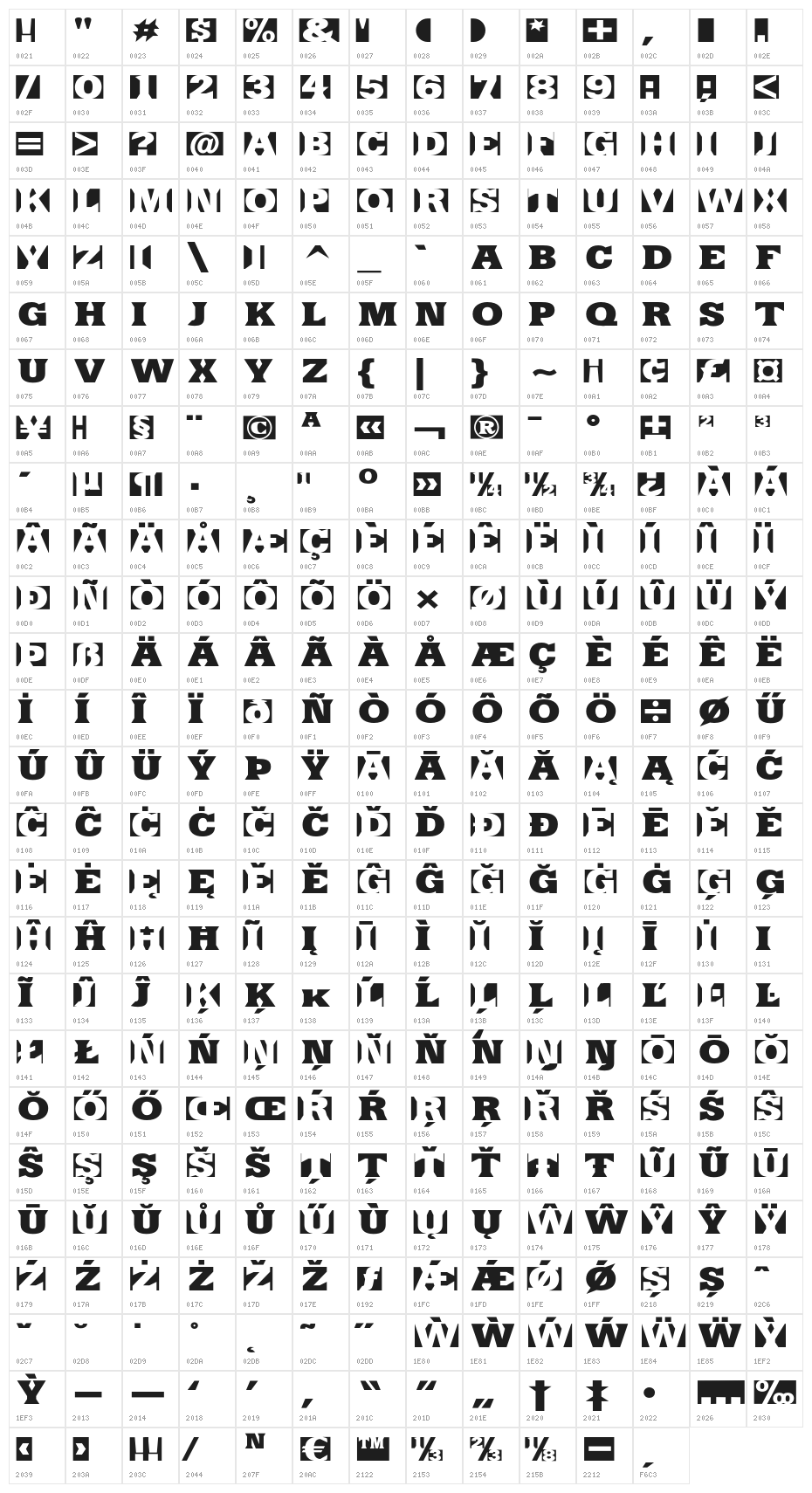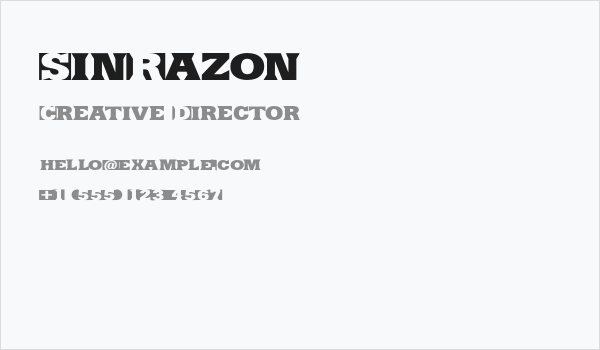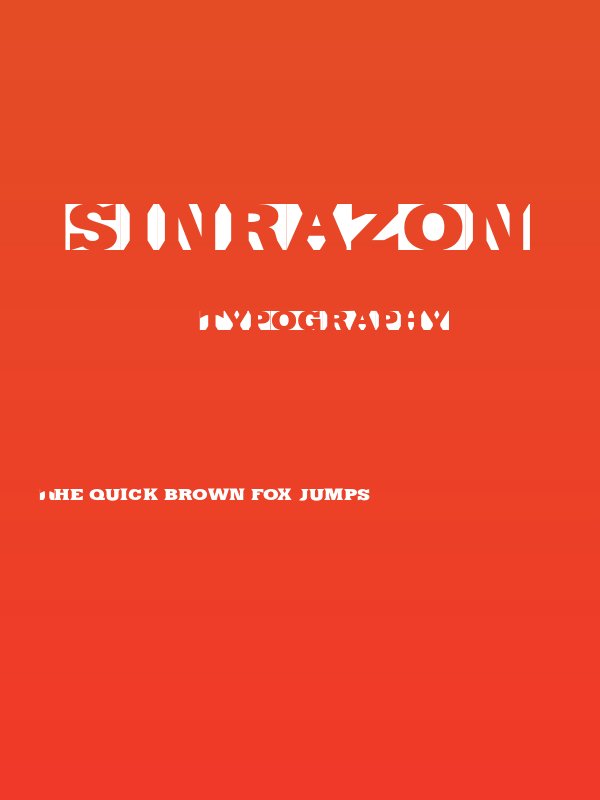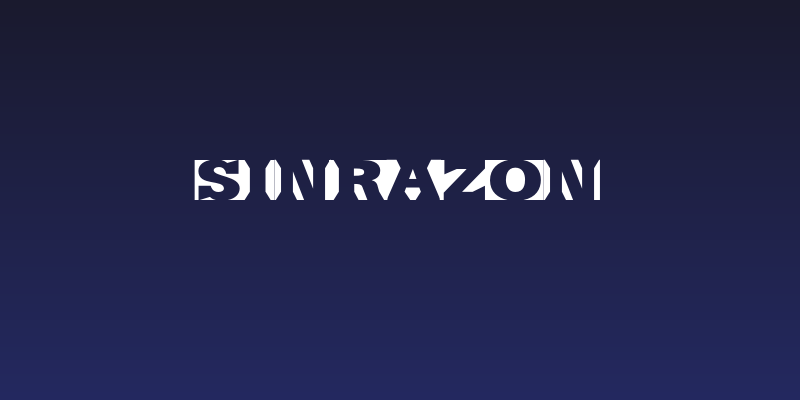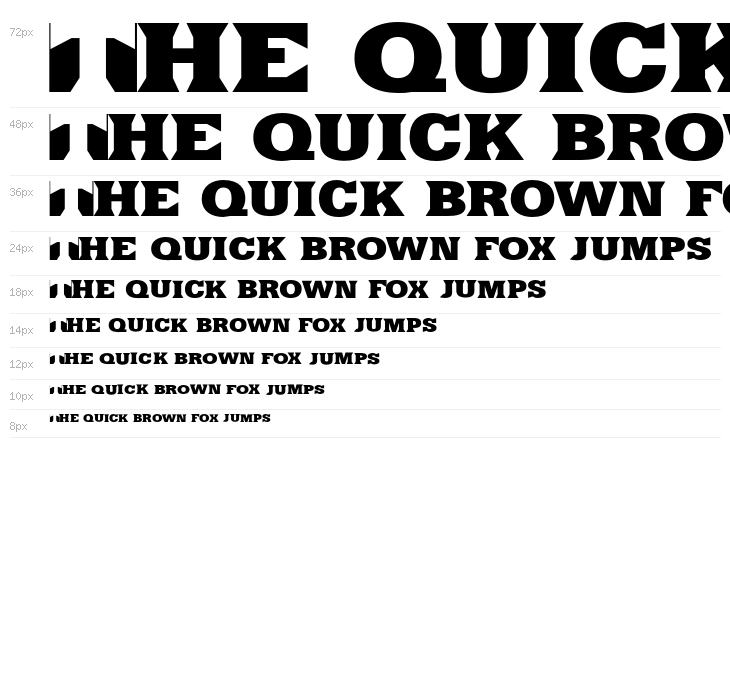
SinRazon Font
SinRazon Description
This font features a bold and striking design with a high contrast between thick and thin strokes, creating a dramatic and eye-catching appearance. The uppercase letters are particularly prominent, with sharp angles and a solid, impactful presence. The numbers and special characters maintain this bold style, ensuring consistency across all characters. The font's unique style makes it ideal for projects that require a strong visual impact.
| Proposed Projects | Ideal for headlines, posters, branding, and any design requiring a strong visual impact. |